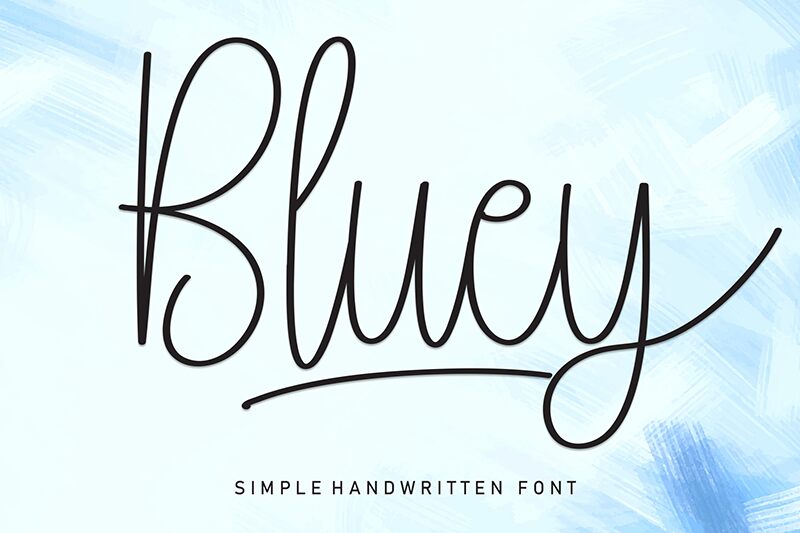
Bluey
Bluey font by Andi Moz is a modern handwritten font with light weight and condensed width. It combines flowing elegance with a casual sophistication and approachable elegance that matches contemporary applications in branding and personal projects.
A free handwritten font which readers will find elegant when used in business cards, posters, digital ads, banners, typography art projects, apparel accessories' designs, landing page UI designs and many other uses.